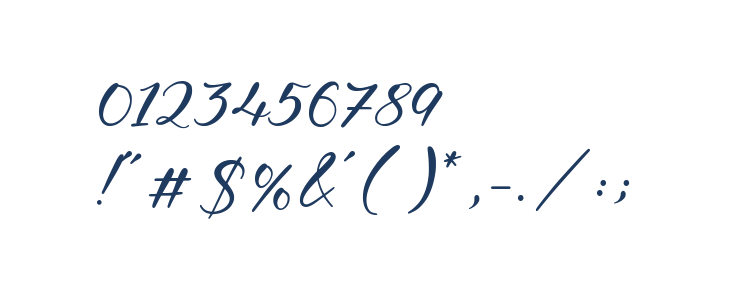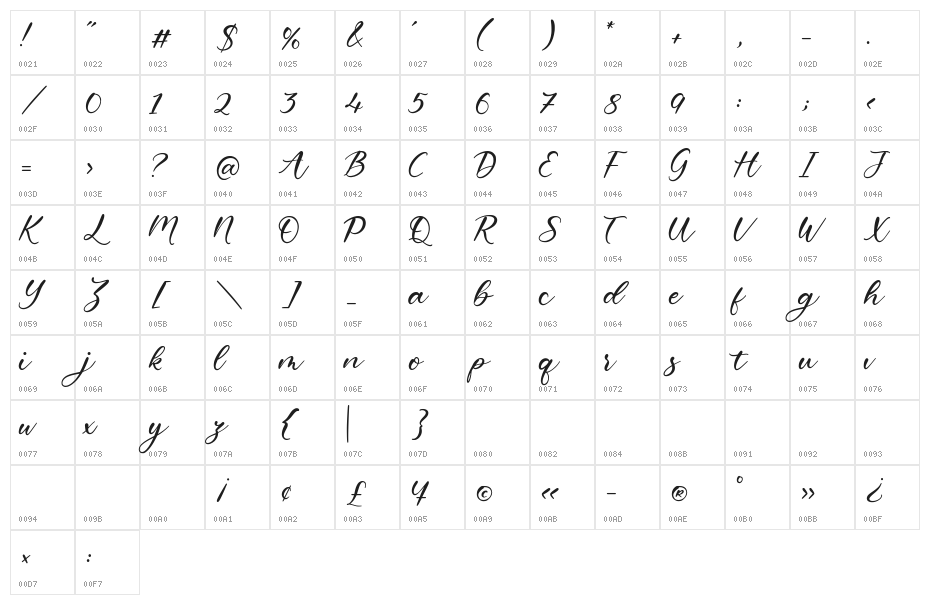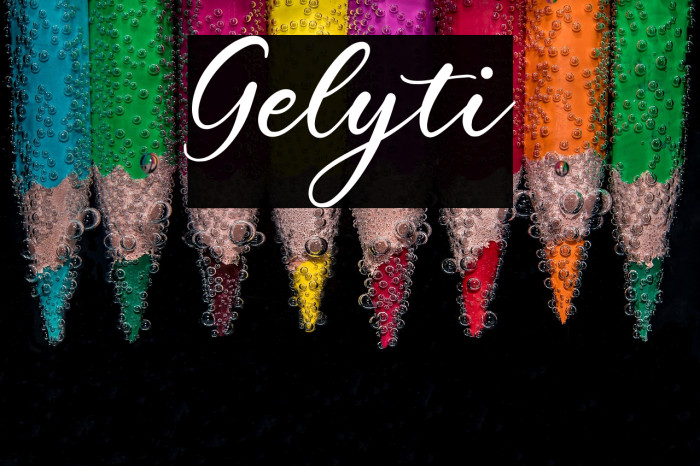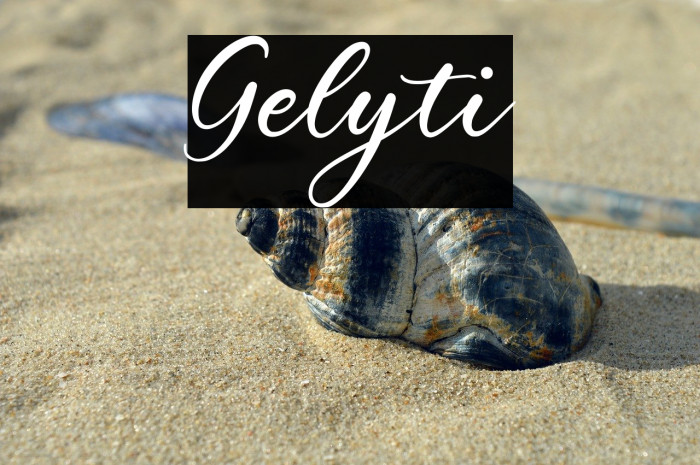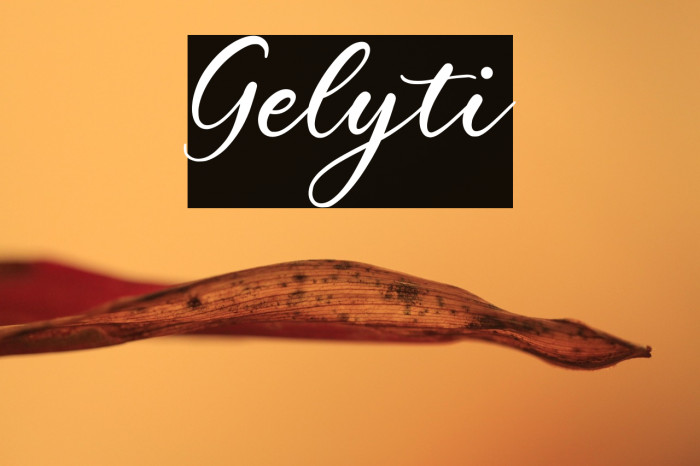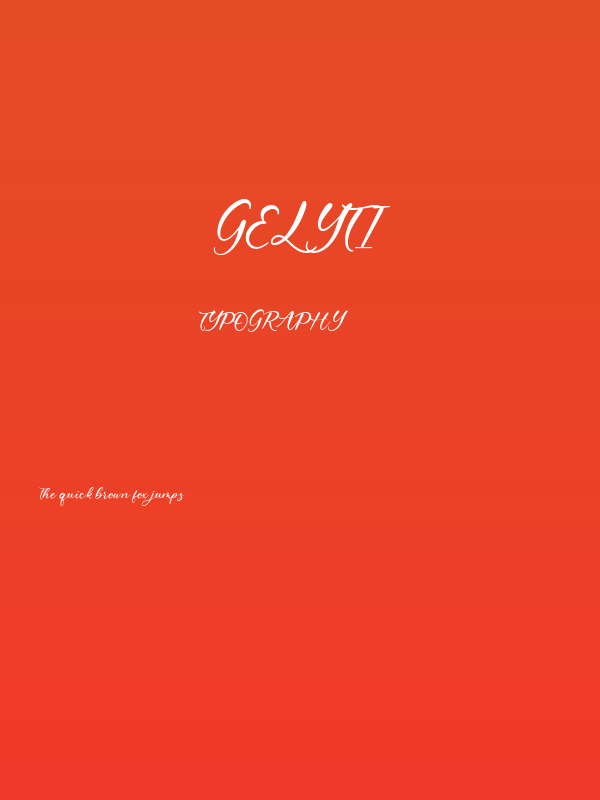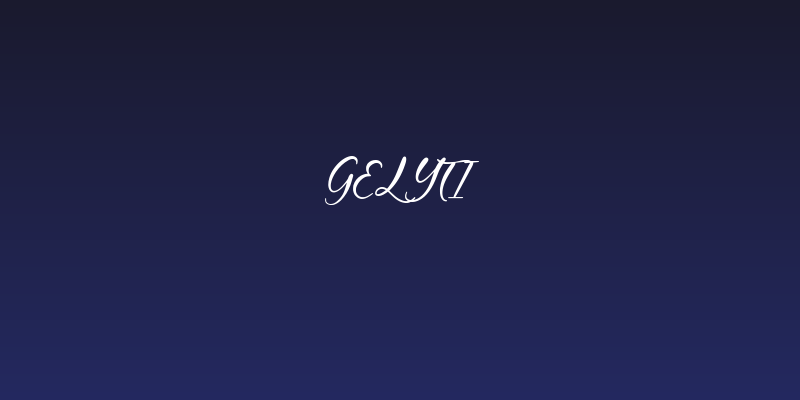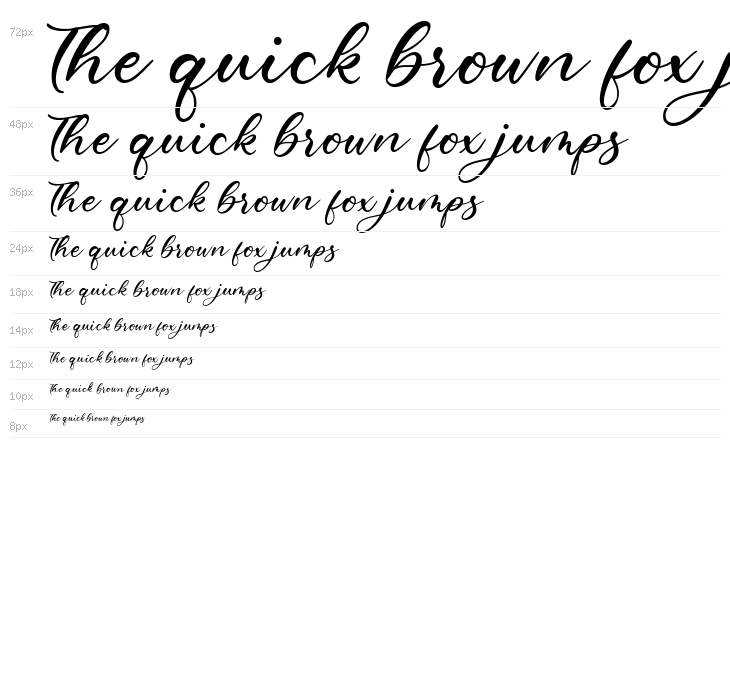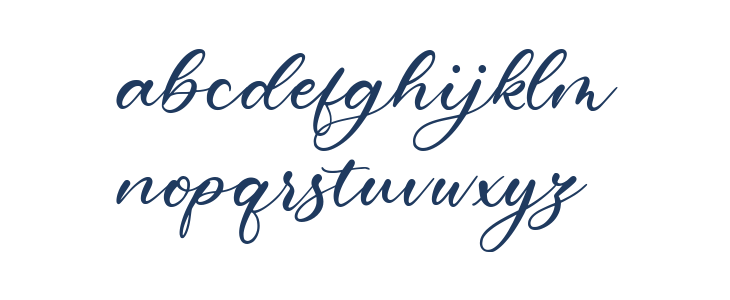
Gelyti Font
Gelyti Description
This elegant script font features flowing, cursive characters with a sophisticated flair. The uppercase letters are tall and graceful, with sweeping ascenders and descenders that add a touch of drama. The lowercase letters maintain a consistent slant, creating a harmonious flow across words. Numbers are designed with a similar style, ensuring they blend seamlessly with the alphabet. Special characters are thoughtfully crafted to match the overall aesthetic, making this font versatile for various uses. The strokes are smooth and fluid, with a medium contrast that enhances readability while maintaining an artistic touch.
| Proposed Projects | Ideal for wedding invitations, elegant branding, greeting cards, and luxury product packaging. |